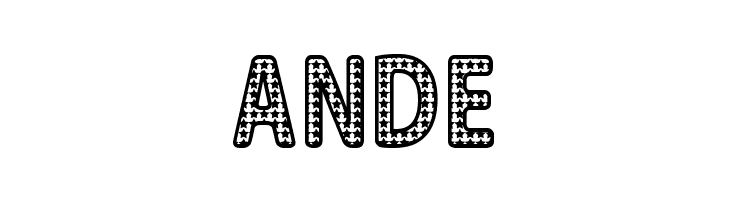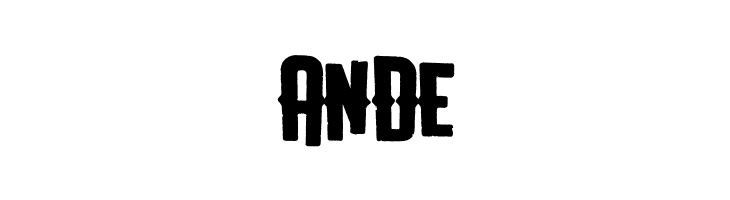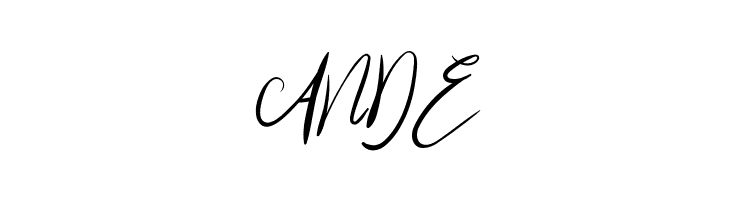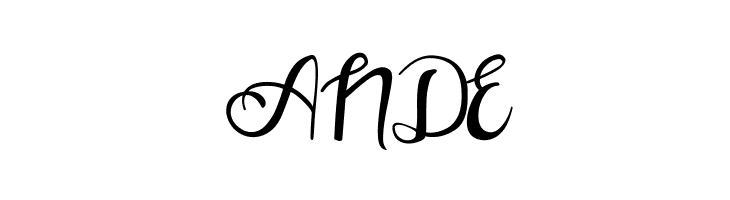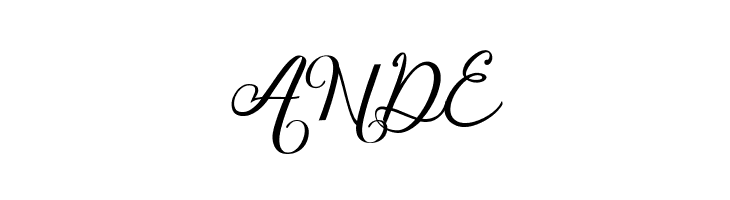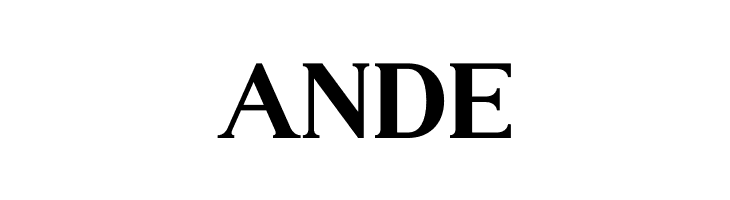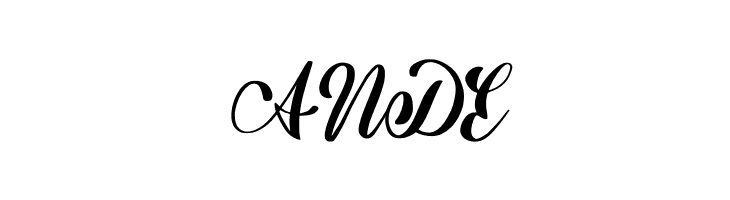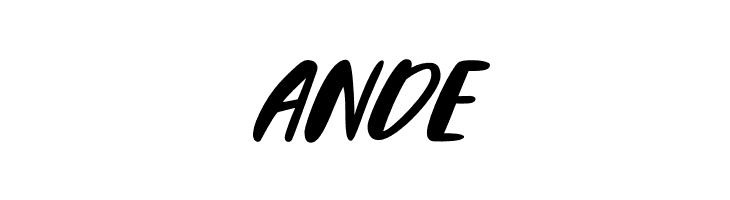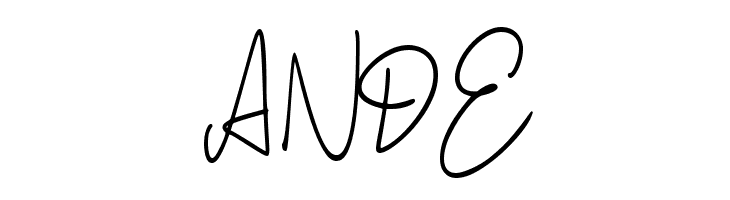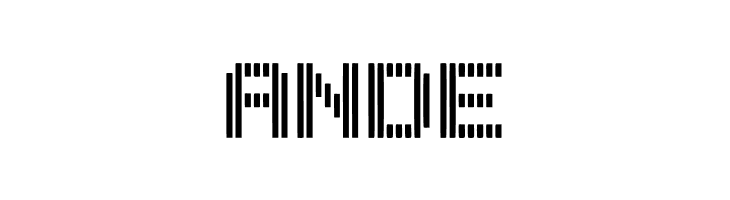
A classic serif font with bold strokes and high contrast, ideal for formal and authoritative designs.
A classic serif font with bold strokes and high contrast, exuding elegance and tradition.
A bold, expressive brush script font with dynamic strokes and a hand-painted look.
A flowing, elegant script font with interconnected, cursive strokes.
A bold, decorative serif font with ornate details.
A bold, decorative font with unique serifs and a cohesive design.
A playful, handwritten font with rounded, consistent strokes and a casual vibe.
A lively and expressive handwritten font with fluid, dynamic strokes.
A segmented, modern font with a digital, pixelated appearance.
A decorative font with a bold, chain-like pattern for each character.
A dynamic, brush-style cursive font with a hand-drawn appearance.
A dynamic, handwritten-style font with expressive, artistic characters.
A bold, distressed font with a hand-painted, rugged appearance.
A playful, bold font with rounded, thick letterforms and a friendly vibe.
A playful, bold handwritten font with dynamic strokes and a casual feel.
A playful, decorative font with bold, irregular strokes and whimsical details.
A lively and flowing script font with elegant, connected letterforms.
A graceful and playful script font with elegant curves and artistic flair.
A lively, handwritten font with flowing, interconnected letterforms and moderate contrast.
A playful handwritten font with a casual and friendly style.
A playful, handwritten font with a smooth, flowing style.
A bold, dynamic script font with a handwritten style.
A bold, textured script font with a vintage, handcrafted feel.
A geometric, octagonal font with a modern and industrial style.
An elegant and sophisticated script font with flowing, connected characters.
A modern, geometric sans-serif font with smooth, rounded edges.
A playful, handwritten-style font with flowing, cursive-like strokes.
An elegant, flowing script font with a natural handwritten style.
A playful, bold handwritten font with smooth curves and rounded edges.
A playful, whimsical handwritten font with flowing, cursive-like strokes.
An elegant script font with flowing, decorative letterforms and intricate flourishes.
A casual handwritten font with a lively and dynamic style.